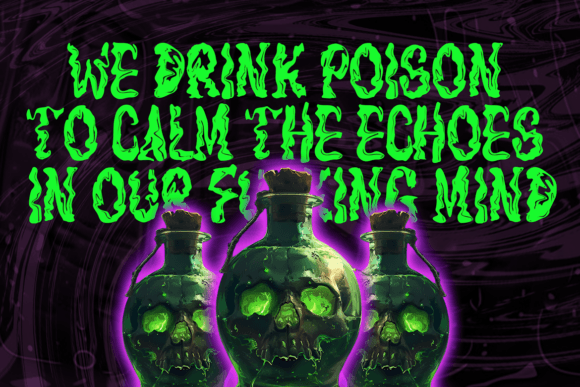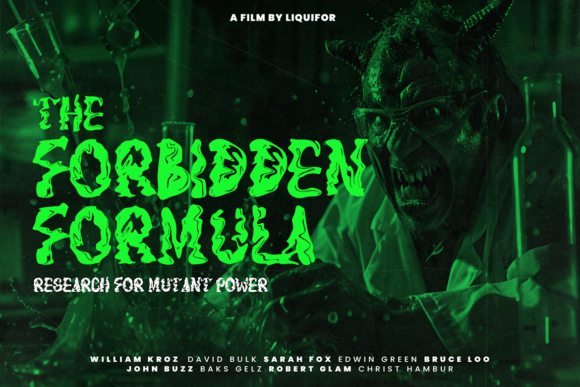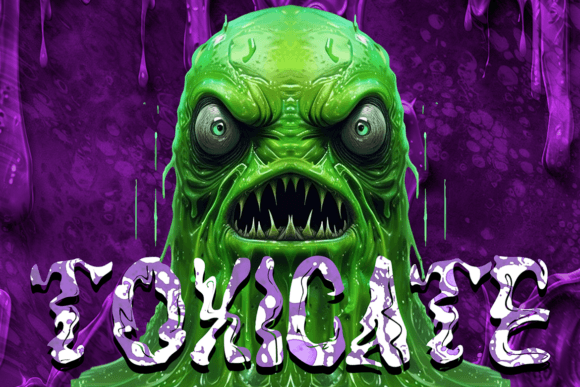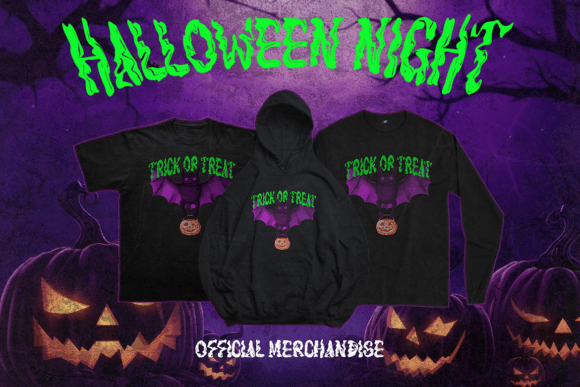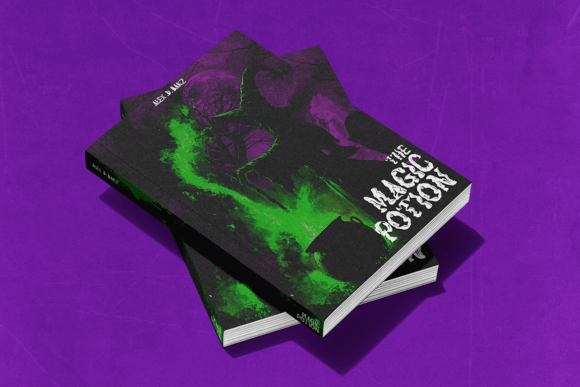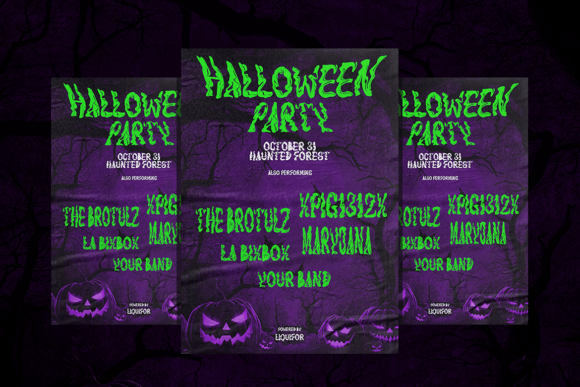
Introduction to Liquifor Font Font
Fonts play a crucial role in design, and the Liquifor Font font is a typeface that brings both character and versatility to any project. Whether you’re working on a branding project, a website, or a print design, the Liquifor Font font offers a unique style that can elevate your work.
Presenting Liquifor: An alluring fusion of aquatic sophistication and mischievous craftsmanship.
Visualize alphabets that seem to be in constant flux, summoning an aura of mystique, perfect for Halloween Each character prances and trickles down, orchestrating a jovial yet spine-chilling ambiance, excellent for innovative projects that aspire to weave the eerie with the classy.
Key Features of Liquifor Font Font
Why Choose Liquifor Font Font?
The Liquifor Font font is more than just a typeface – it’s a design tool that helps you communicate your message with style and clarity. Its unique character set and versatile design make it suitable for a wide range of applications, from elegant invitations to bold headlines.
With its carefully crafted letterforms and balanced proportions, the Liquifor Font font ensures readability and visual appeal across all mediums.
What makes Liquifor Font font special?
The Liquifor Font font stands out with its unique design, exceptional readability, and versatility across various design applications.